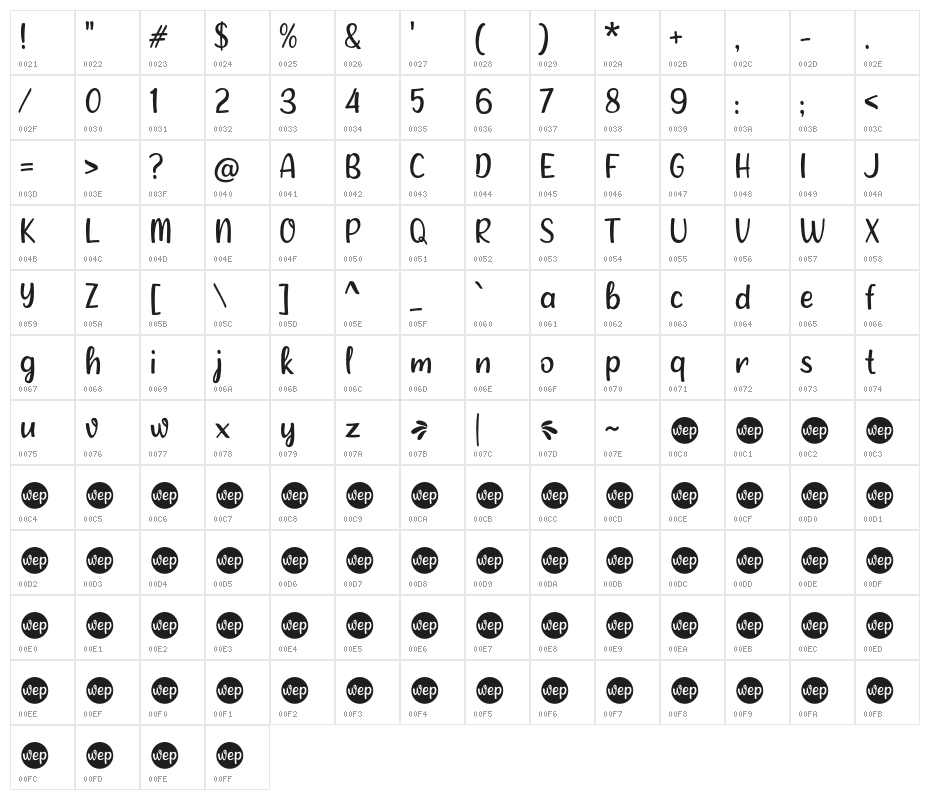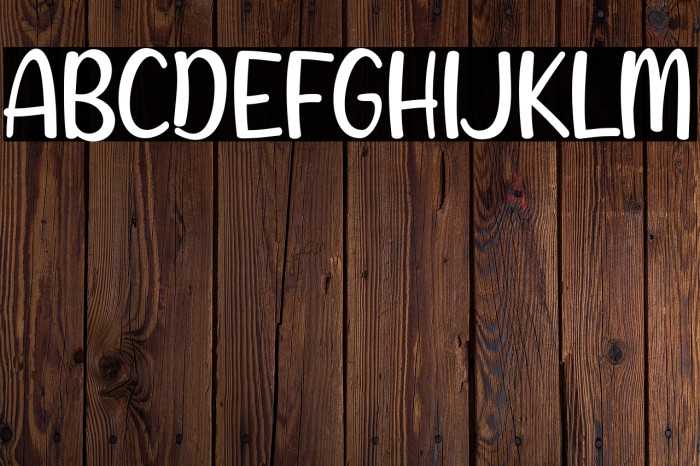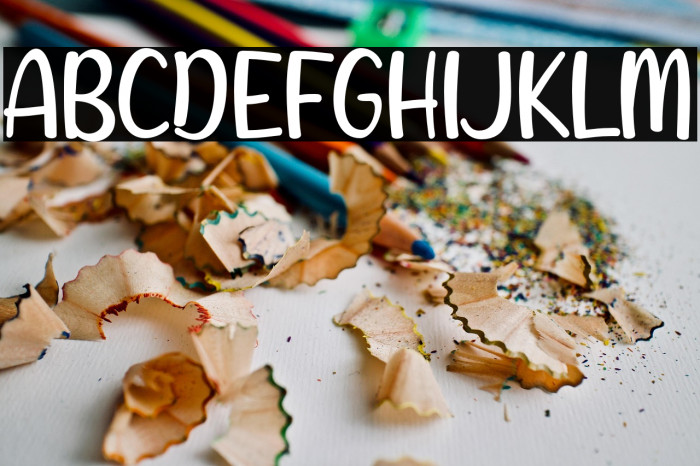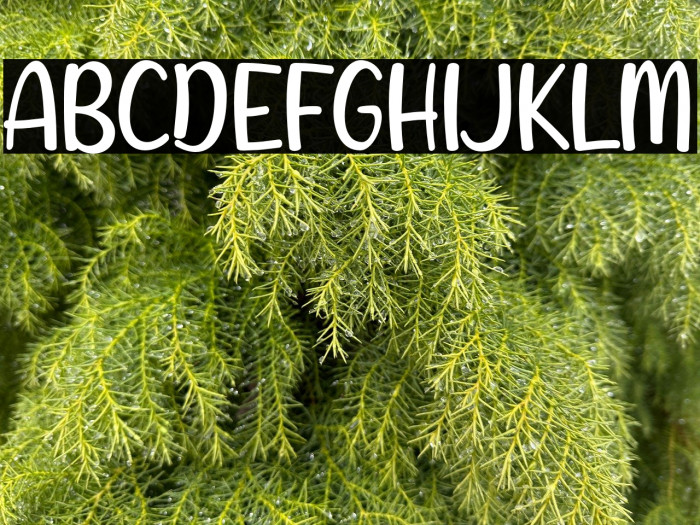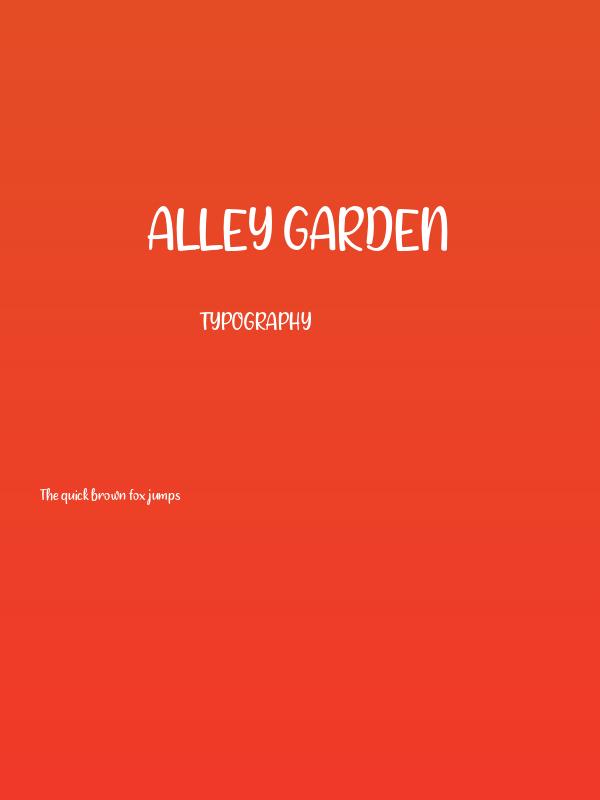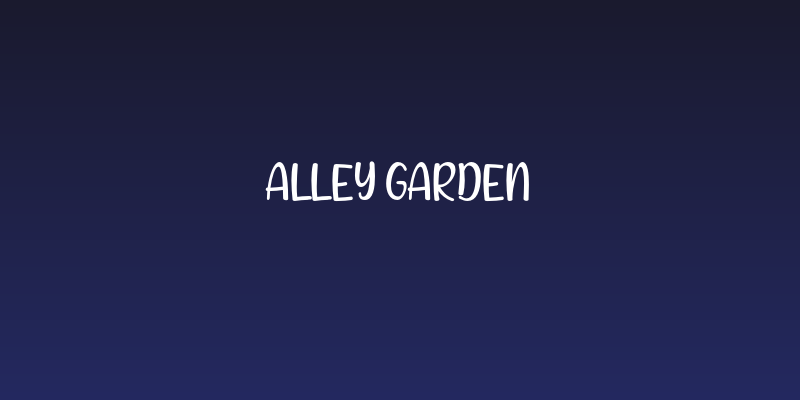
Alley Garden Font
Alley Garden Description
This font features a playful and casual handwritten style, characterized by its rounded and smooth letterforms. The uppercase letters are bold and slightly elongated, giving a sense of friendliness and approachability. The lowercase letters maintain a consistent flow, with some characters having unique, whimsical tails and loops that add to the font's charm. The numerals are clear and easy to read, matching the overall style of the alphabet. Special characters are well-integrated, maintaining the playful aesthetic. This font is versatile, suitable for projects that require a personal touch or a fun, informal vibe.
| Use Case | Headlines, Logos, Informal Texts |
| Proposed Projects | Ideal for greeting cards, children's books, playful branding, and social media graphics. |